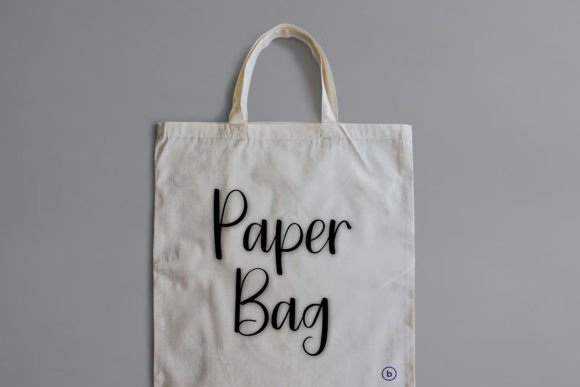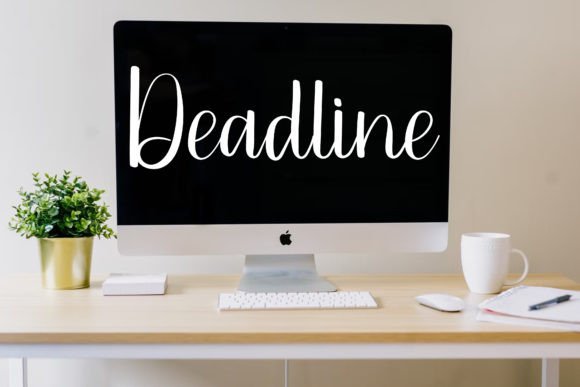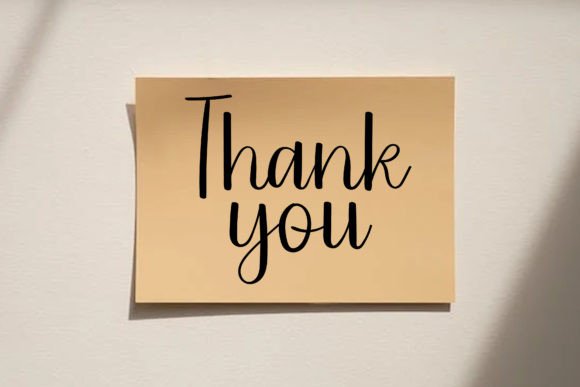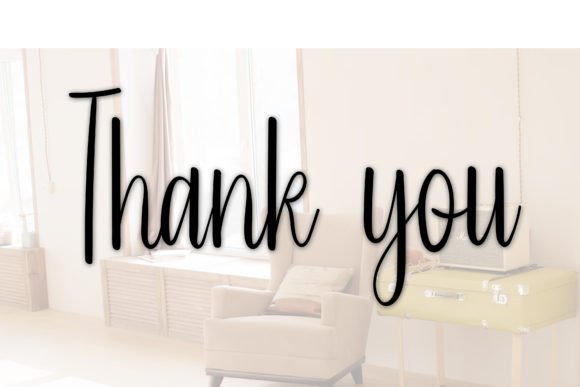
Simple Home Font
About Simple Home Font
Introducing “Simple Home” – Your Neat and Casual Handwritten Font for Boundless Creativity!
“Simple Home” is more than just a font; it’s a neat and casual handwritten typeface that brings a natural and unique style to your design projects. With “Simple Home,” your imagination is the only limit, as it seamlessly adapts to a wide array of creative designs.
With “Simple Home,” you gain access to a font that combines neatness with casual charm. Its handwritten style adds authenticity and a touch of uniqueness to your text, ensuring that your content stands out with a sense of natural beauty.
Picture using “Simple Home” to create inviting designs that resonate with warmth and authenticity, craft down-to-earth branding that reflects the comforts of home, design engaging social media posts that connect with your audience on a personal level, or add a touch of casual elegance to your creative projects. This font’s natural and unique style makes it incredibly versatile and perfect for boundless creativity.
Whether you’re an experienced designer or someone looking to infuse your work with a personal touch, “Simple Home” is your go-to font for embracing natural beauty and casual charm.